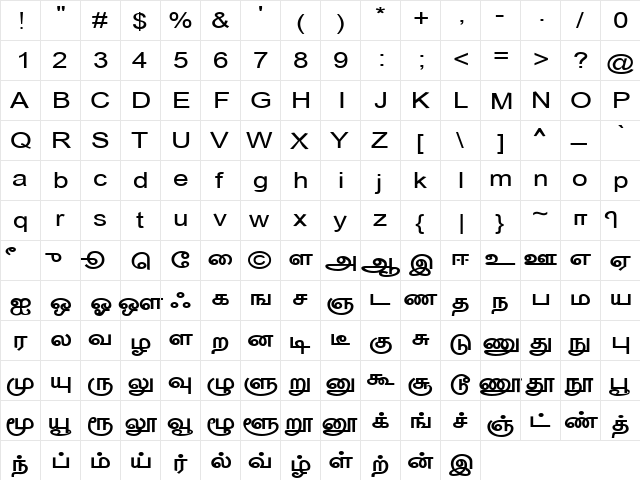
TSC_Kannadaasan Regular
| Foundry | Tharagai Tamil fonts |
| Designer | Kalaimani |
Design Context for TSC_Kannadaasan Typeface
TSC_Kannadaasan offers clean, dependable letterforms without strong stylistic allegiance, making it a practical choice for designers who need flexibility.